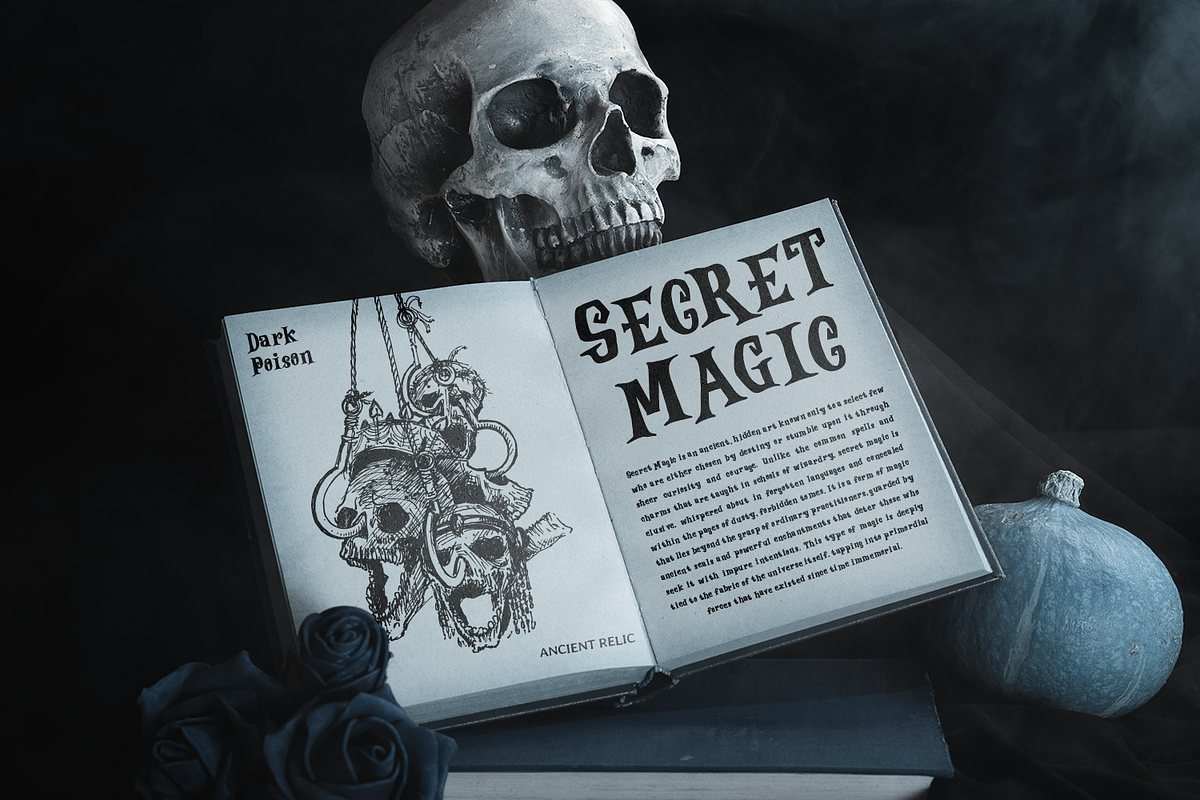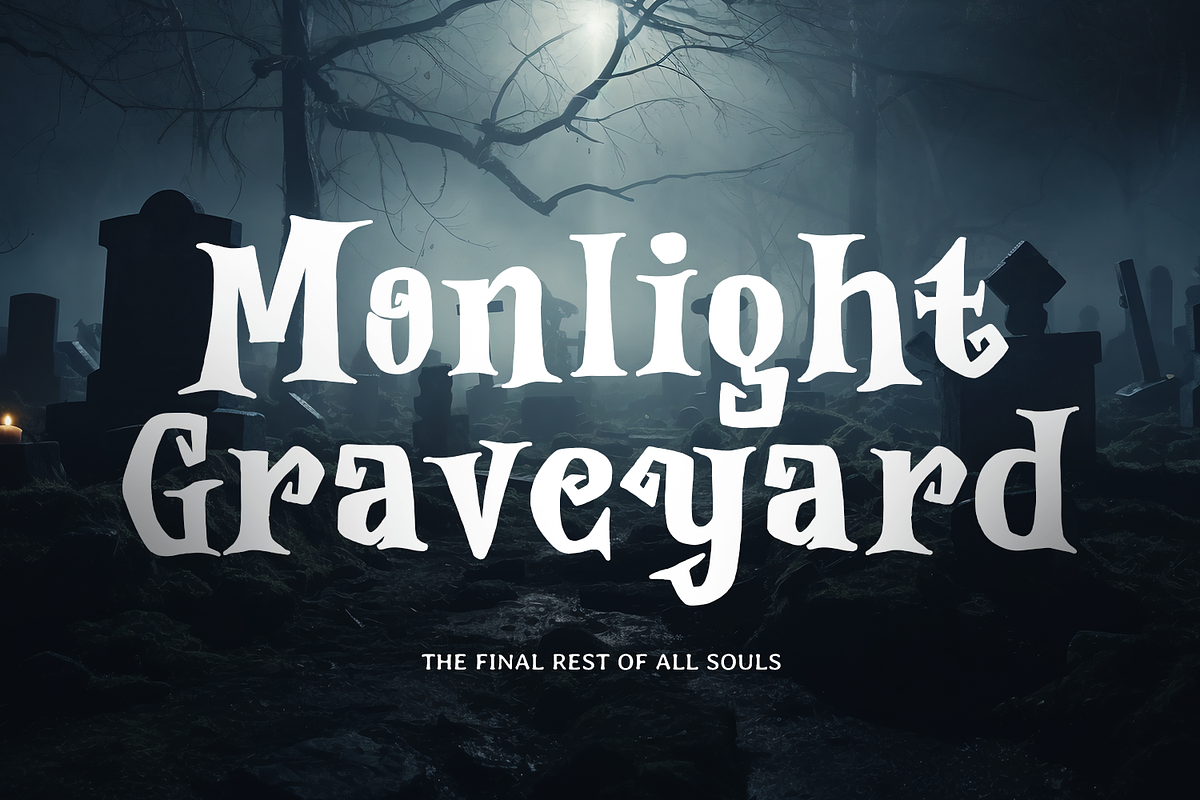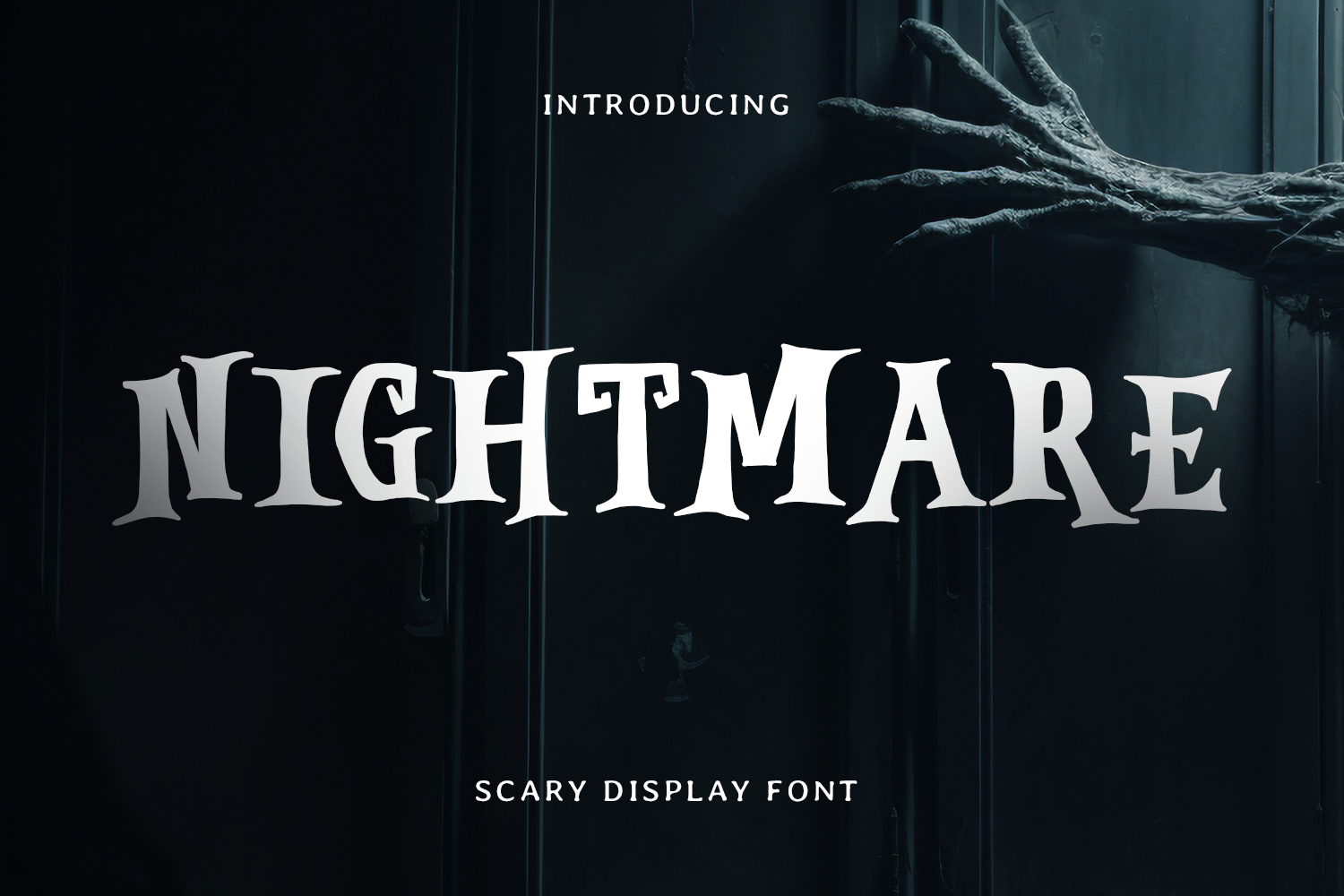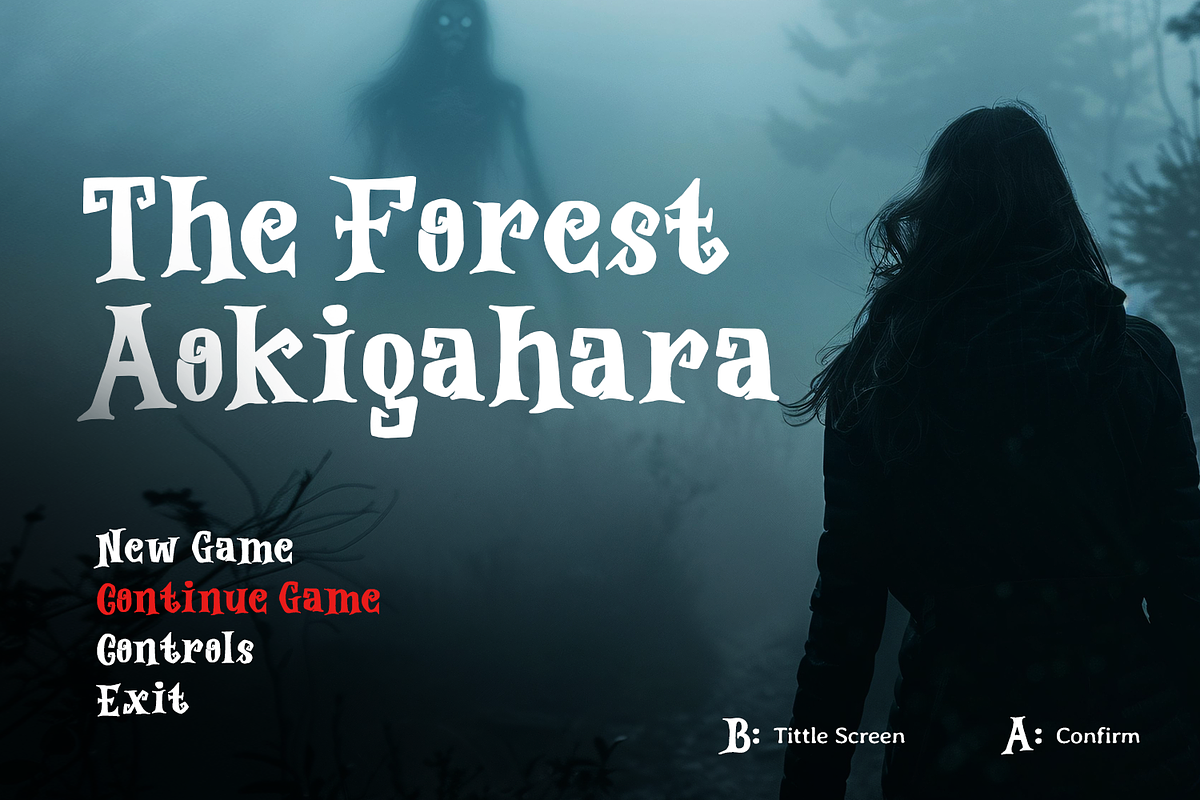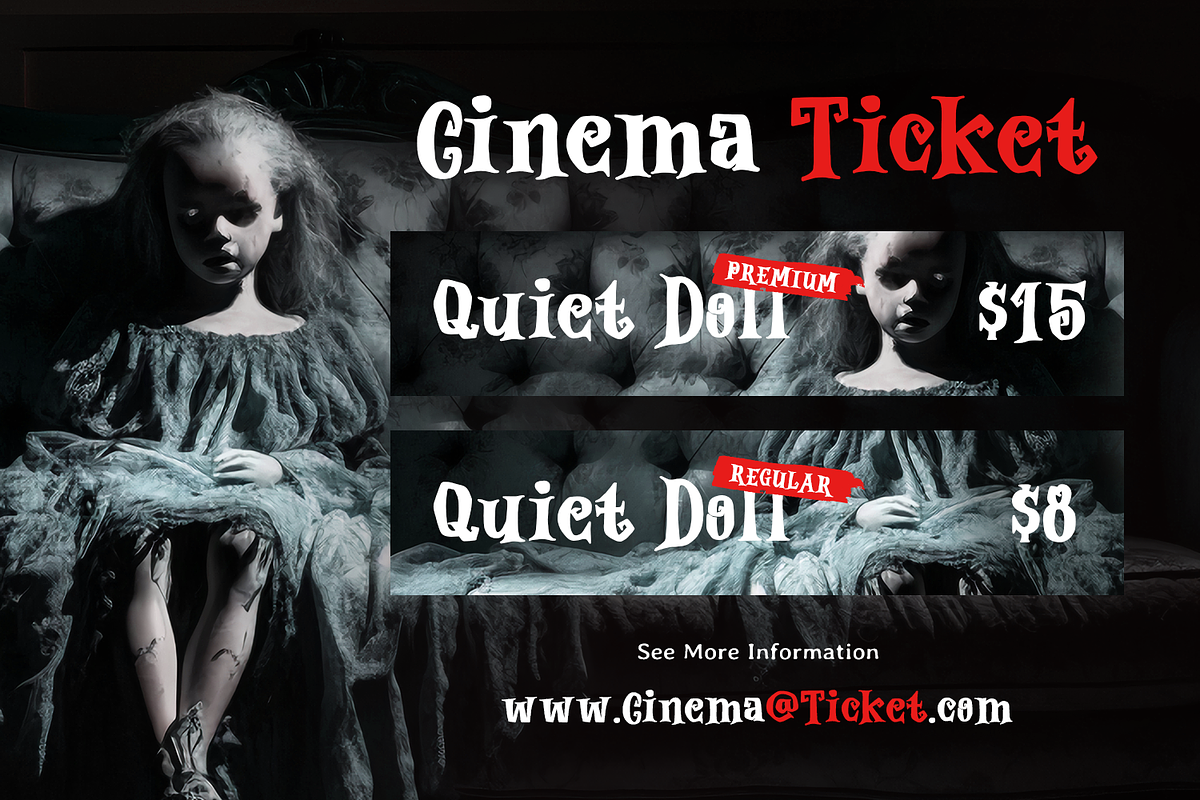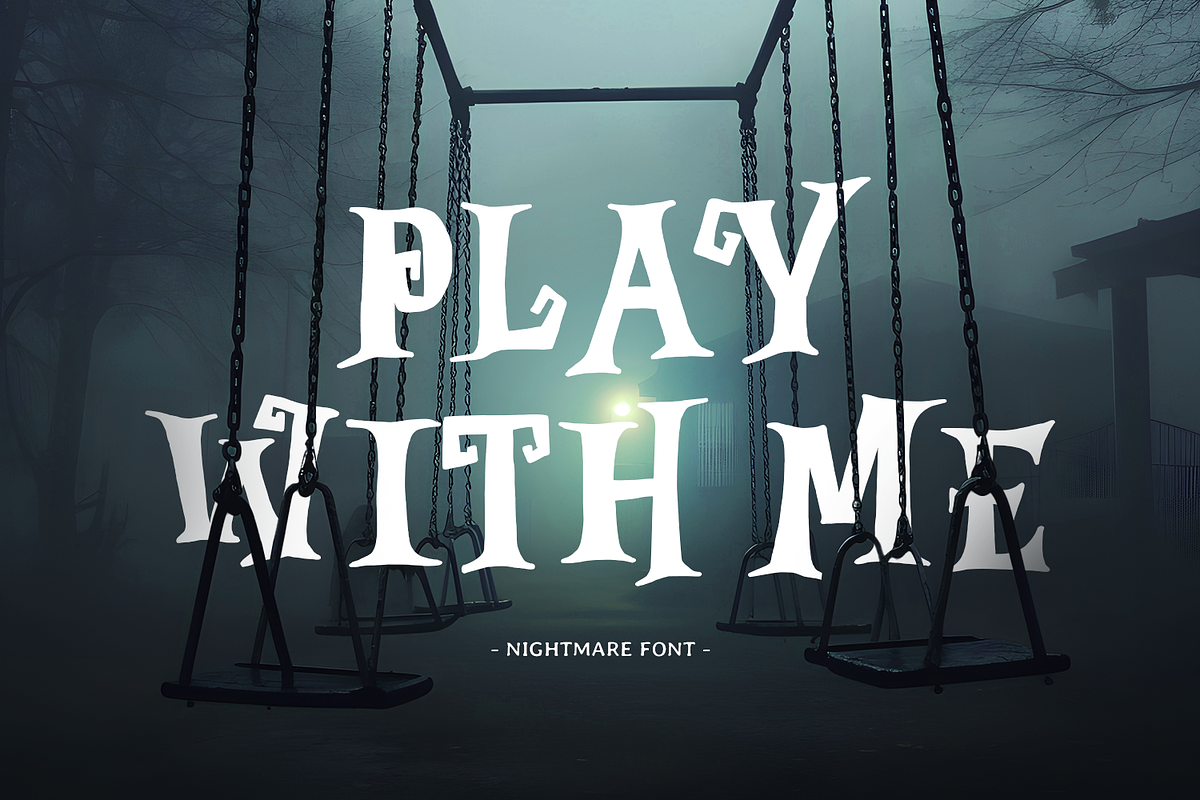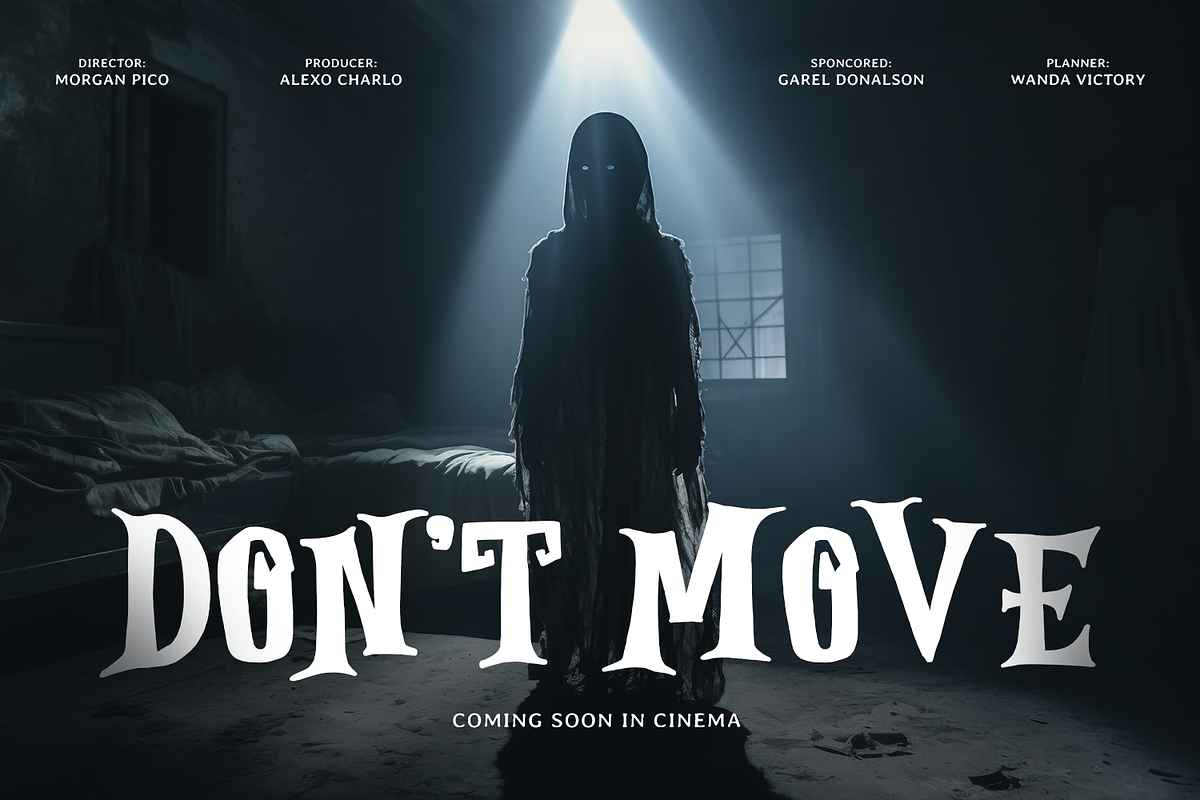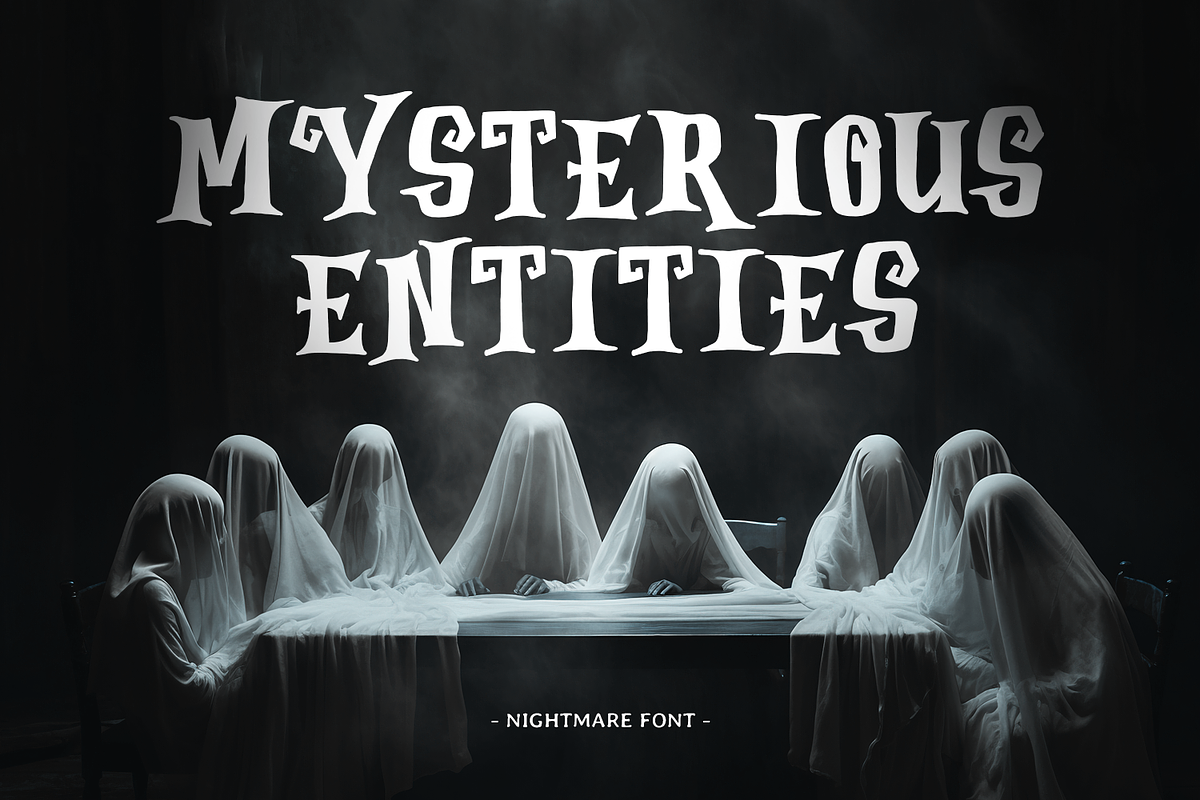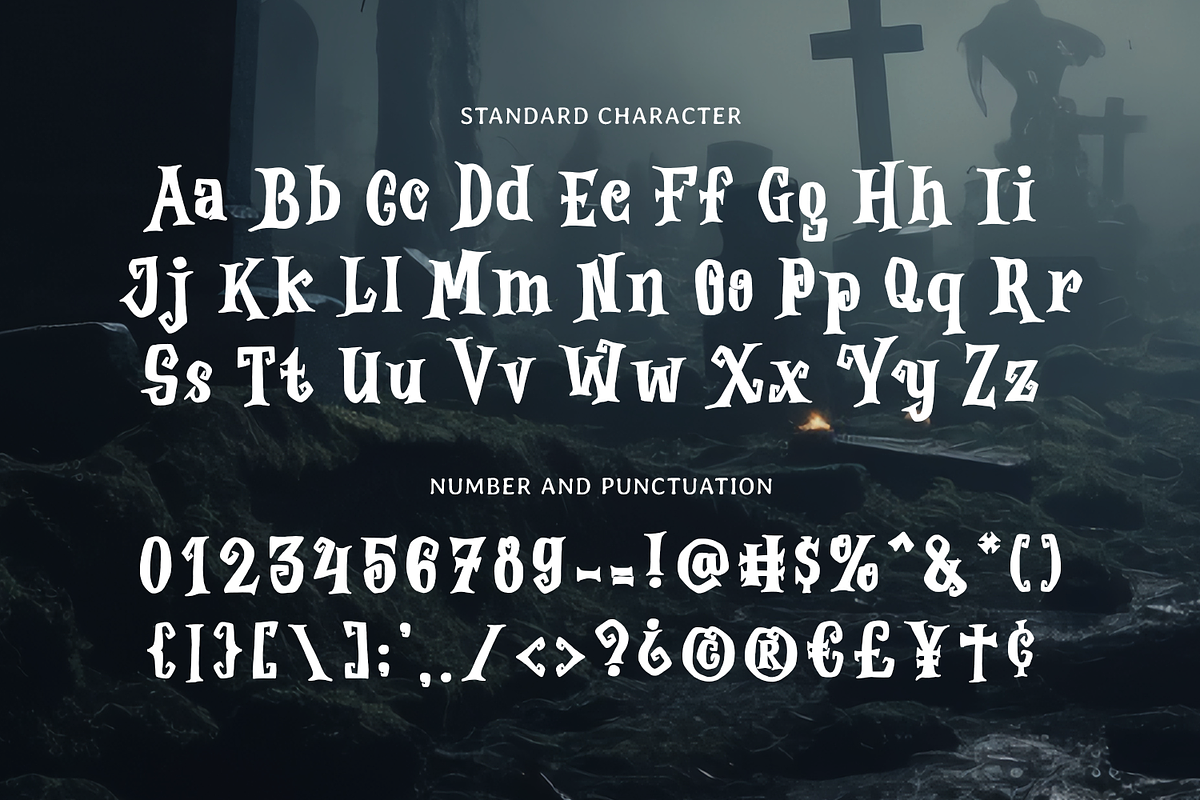
NIGHTMARE - Halloween Font
The "NIGHTMARE" font is a captivating display typeface crafted to embody the chilling spirit of Halloween. Its jagged, uneven lines and dramatic curves evoke a sense of dread and mystery, perfect for capturing the eerie ambiance of October nights. Every letter seems to tell a haunted story, making it an ideal choice for spooky designs.
Inspired by the thrill of horror and the playful mischief of trick-or-treating, "NIGHTMARE" brings a decorative edge to your creative projects. Whether you're designing haunted house posters, creepy invitations, or chilling social media posts, this font delivers a bold and unforgettable statement. Its intricate details and shadowy aura enhance any Halloween-themed aesthetic.